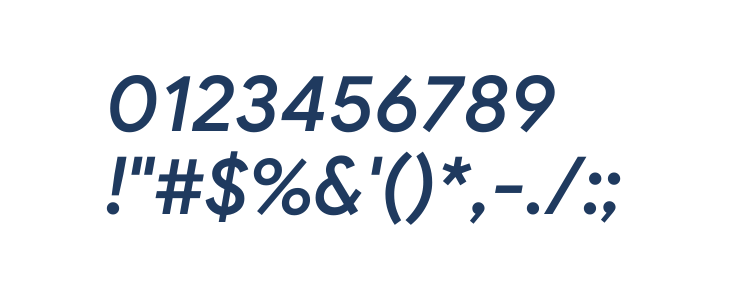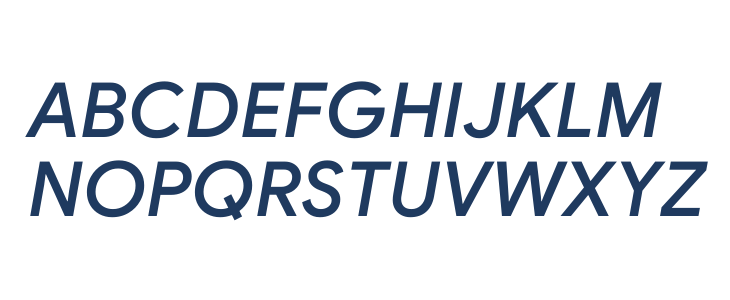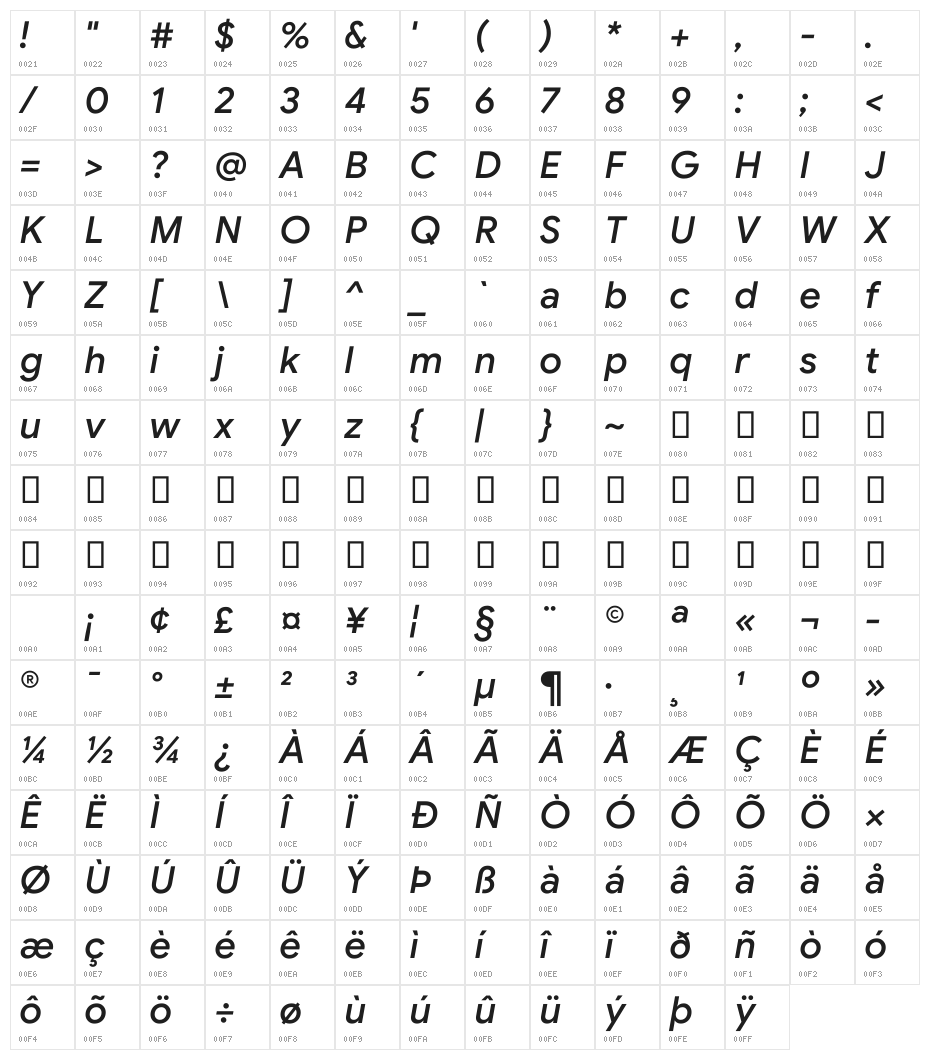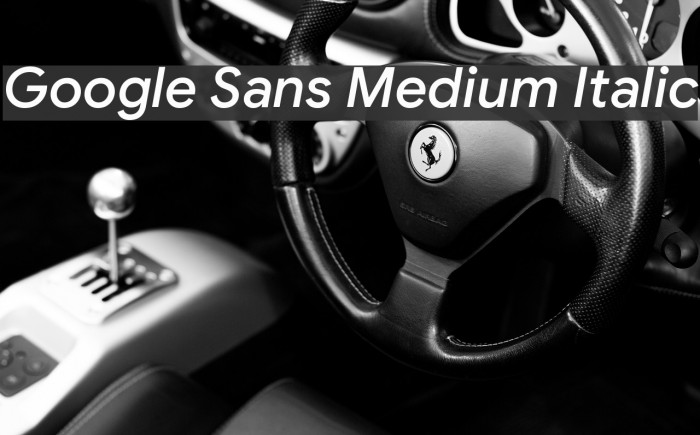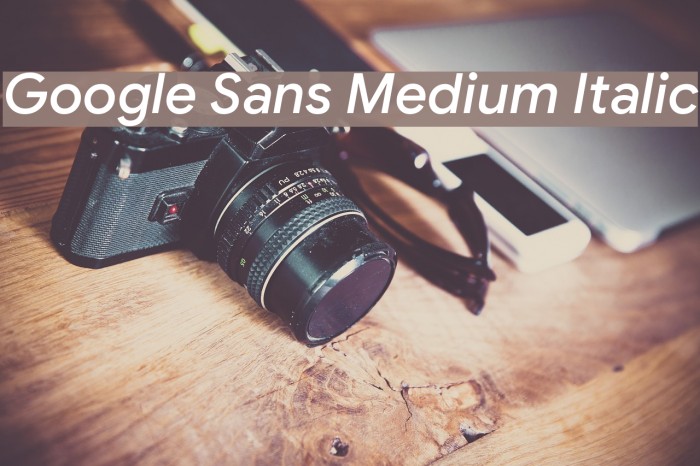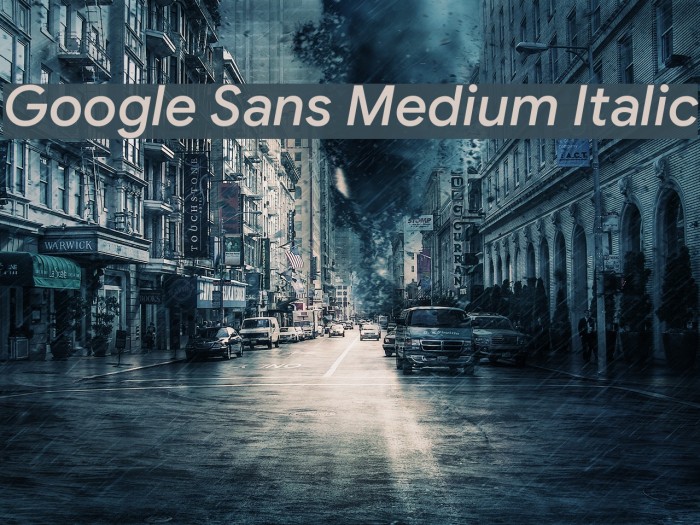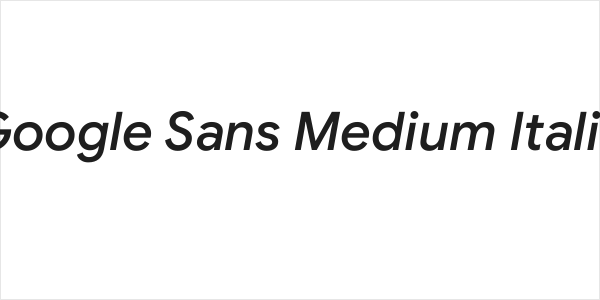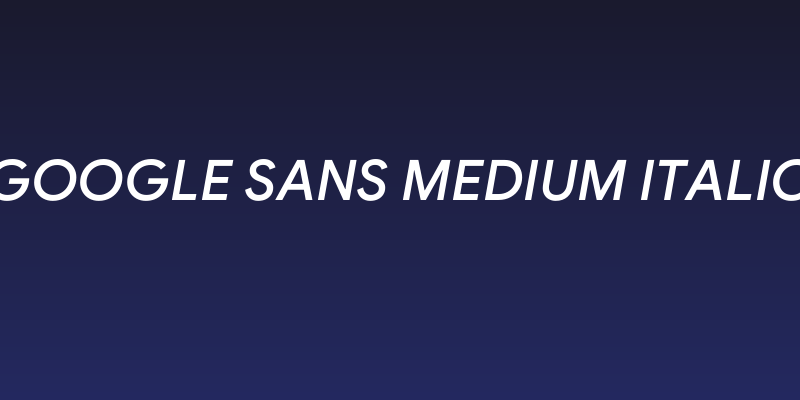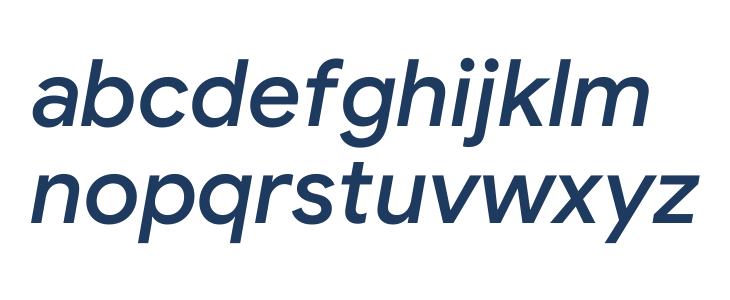
Google Sans Medium Italic Font
Google Sans Medium Italic Description
This font features a clean and modern sans-serif style with a slight italic slant, giving it a dynamic and forward-moving appearance. The characters are well-balanced with a medium weight, providing a strong yet approachable look. The strokes are consistent, offering a medium contrast that enhances readability without sacrificing style. The overall design is sleek and professional, making it suitable for a wide range of applications. The character spacing is normal, ensuring clarity and legibility across different sizes and contexts.